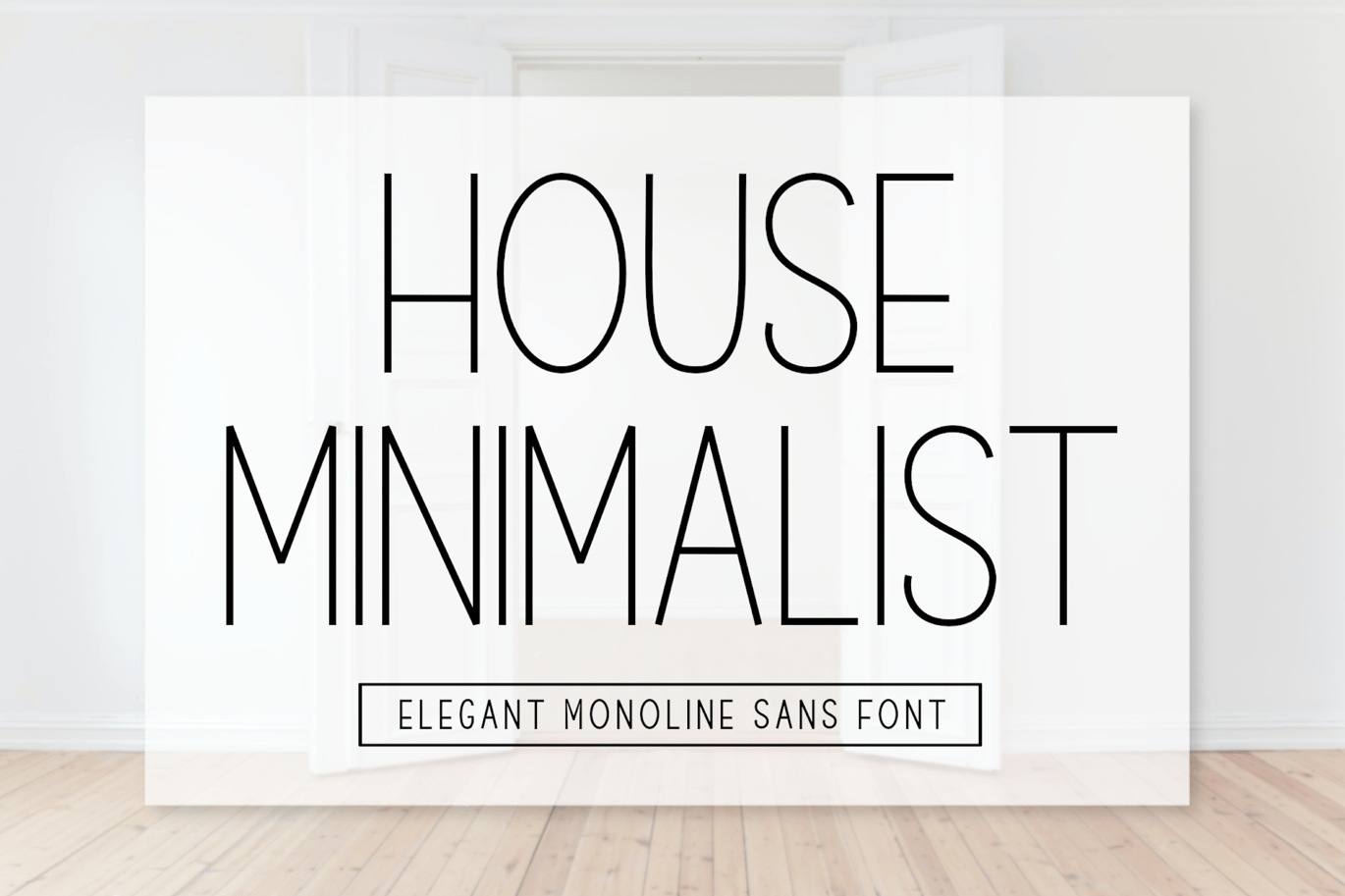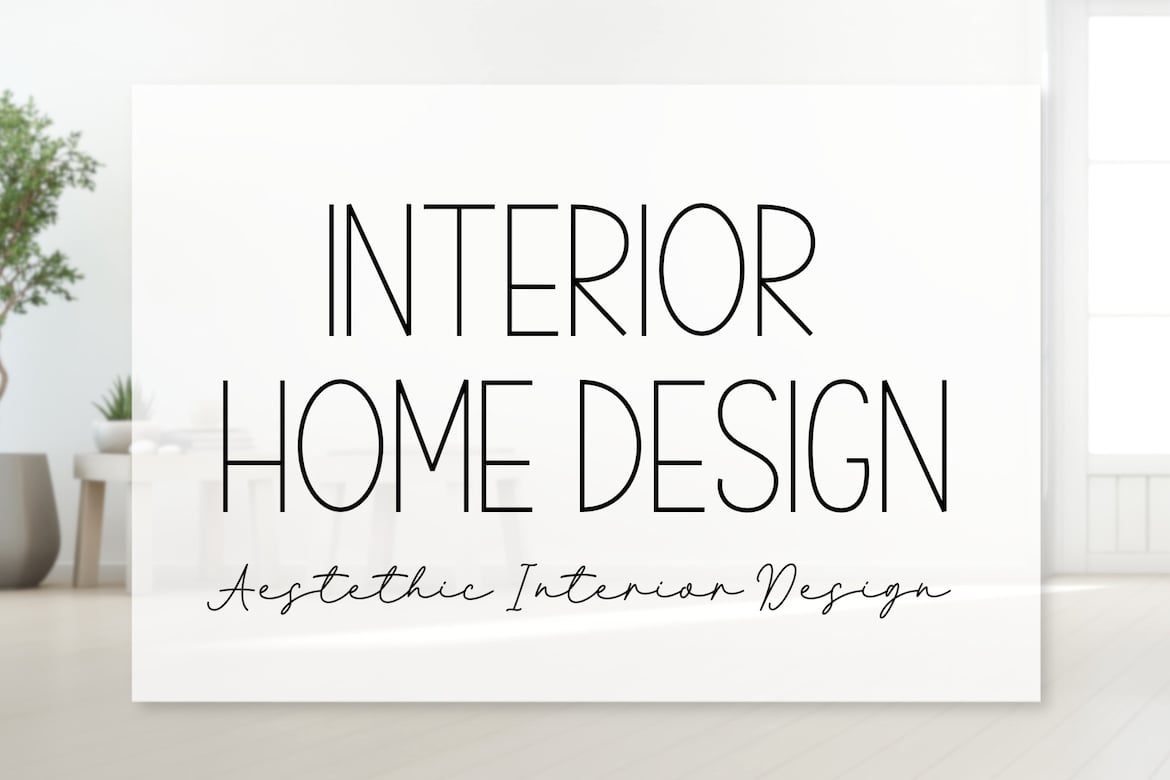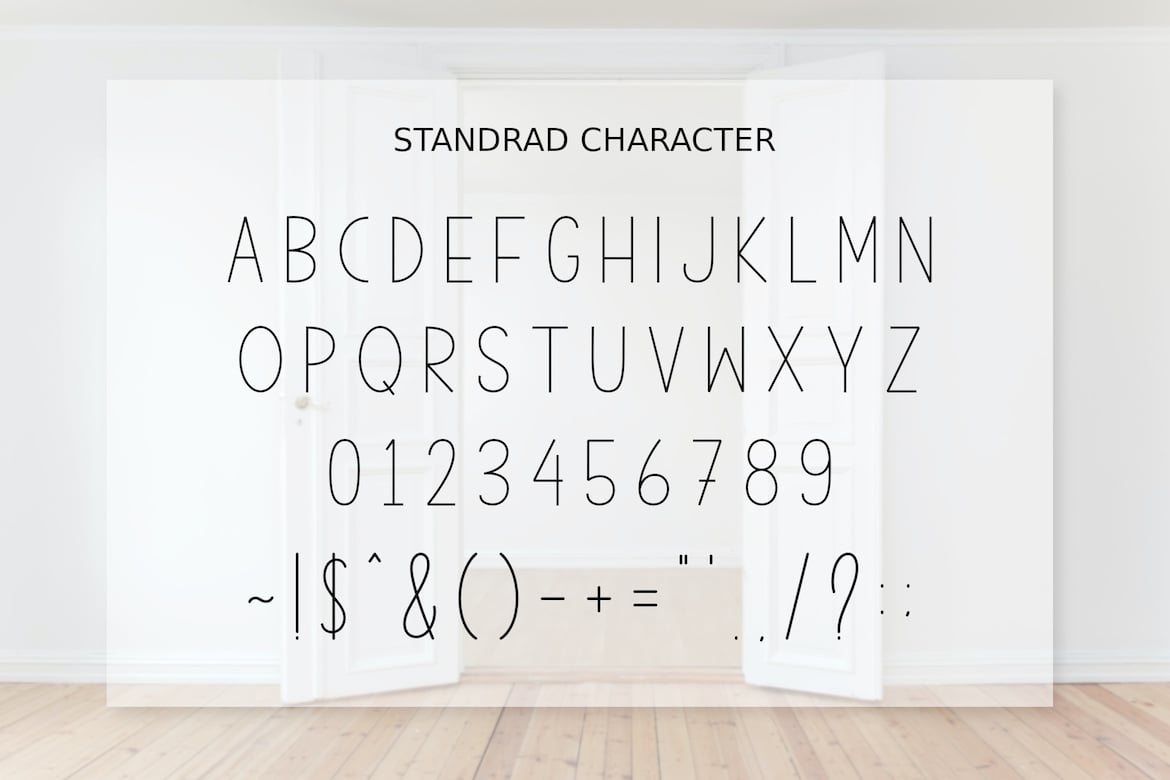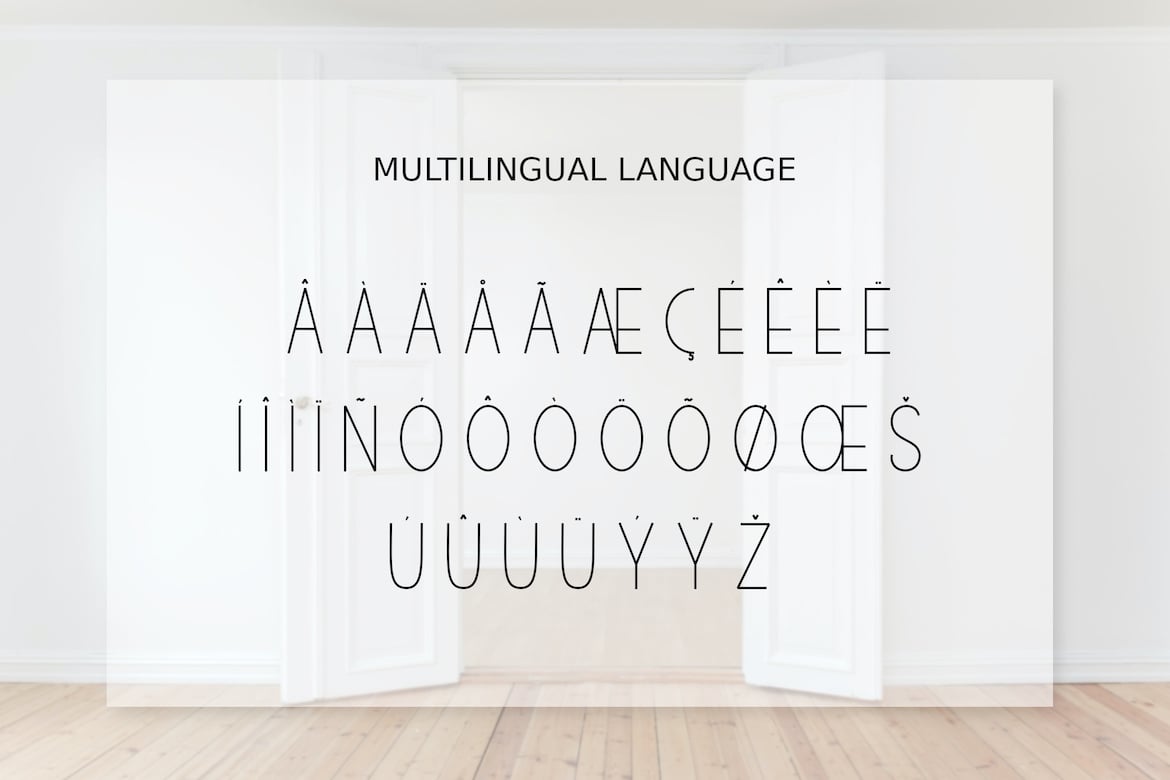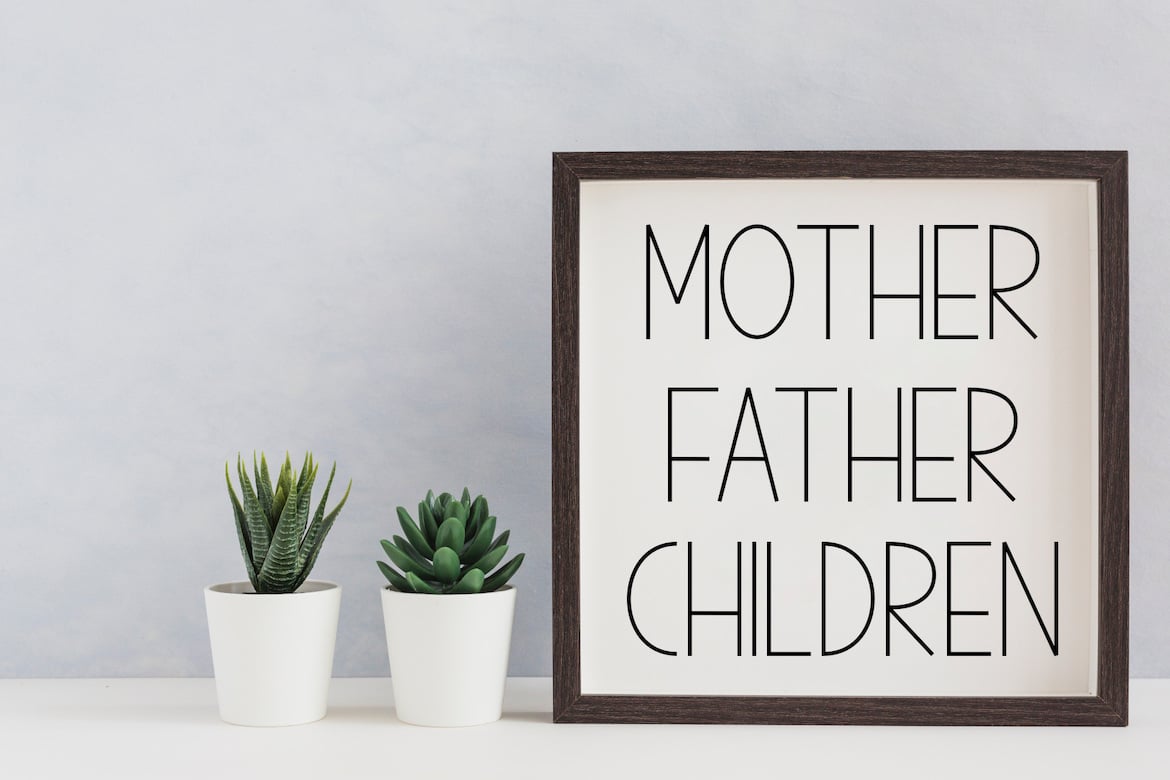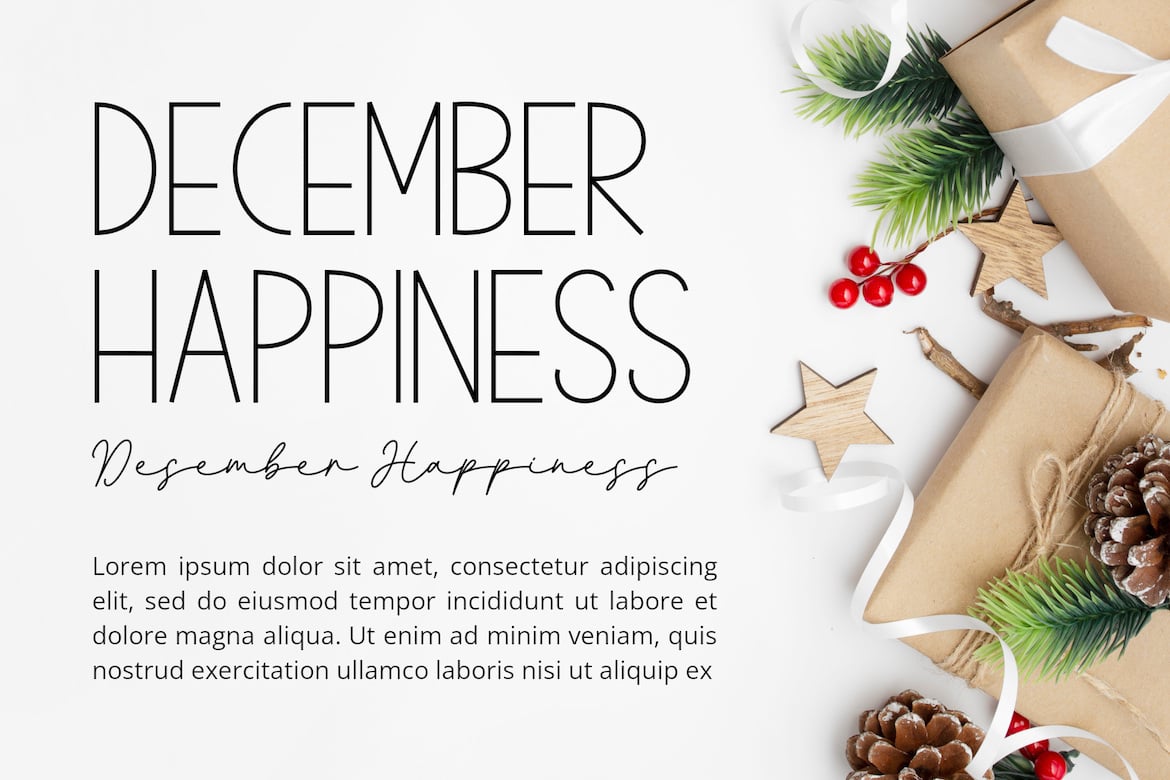
House Minimalist – Elegant Monoline Font
House Minimalist is a simple and elegant monoline font, perfect for adding a touch of sophistication to your designs. Its clean lines and minimalist style make it versatile for a variety of projects, including posters, property magazines, business cards, and more. Elevate your design work with the timeless elegance of House Minimalist.